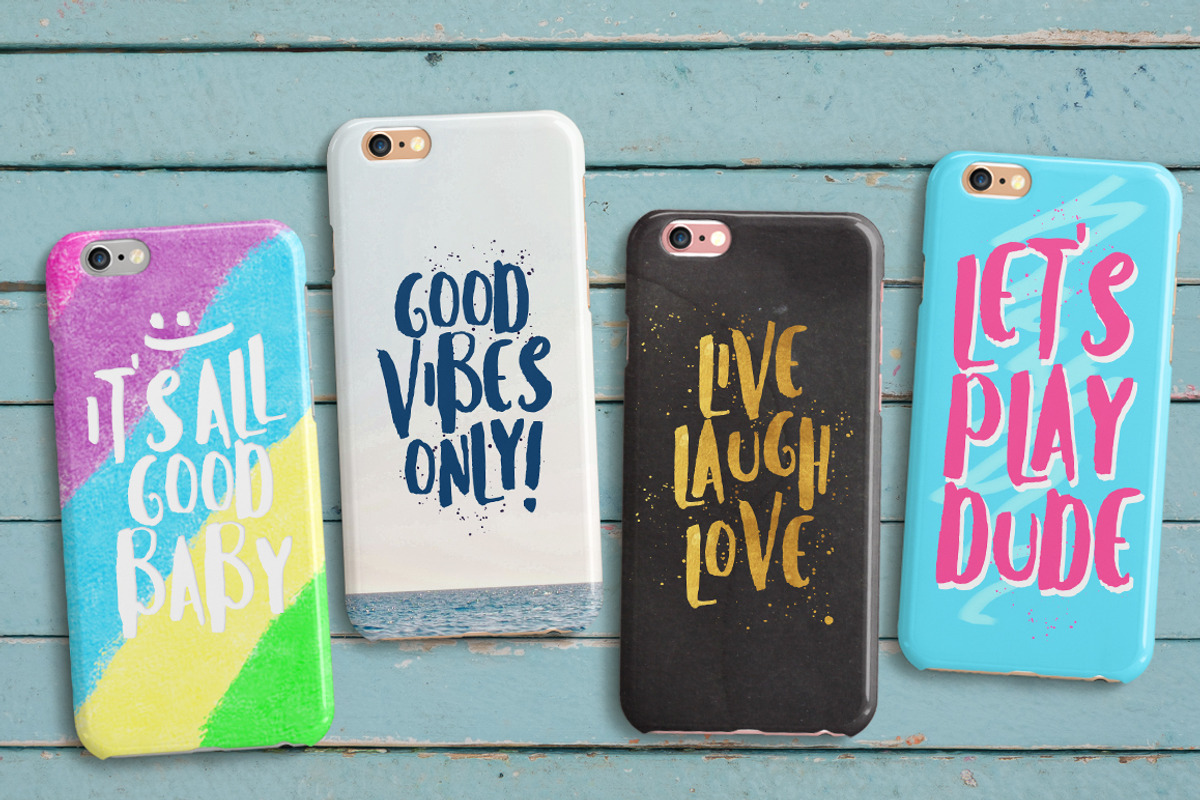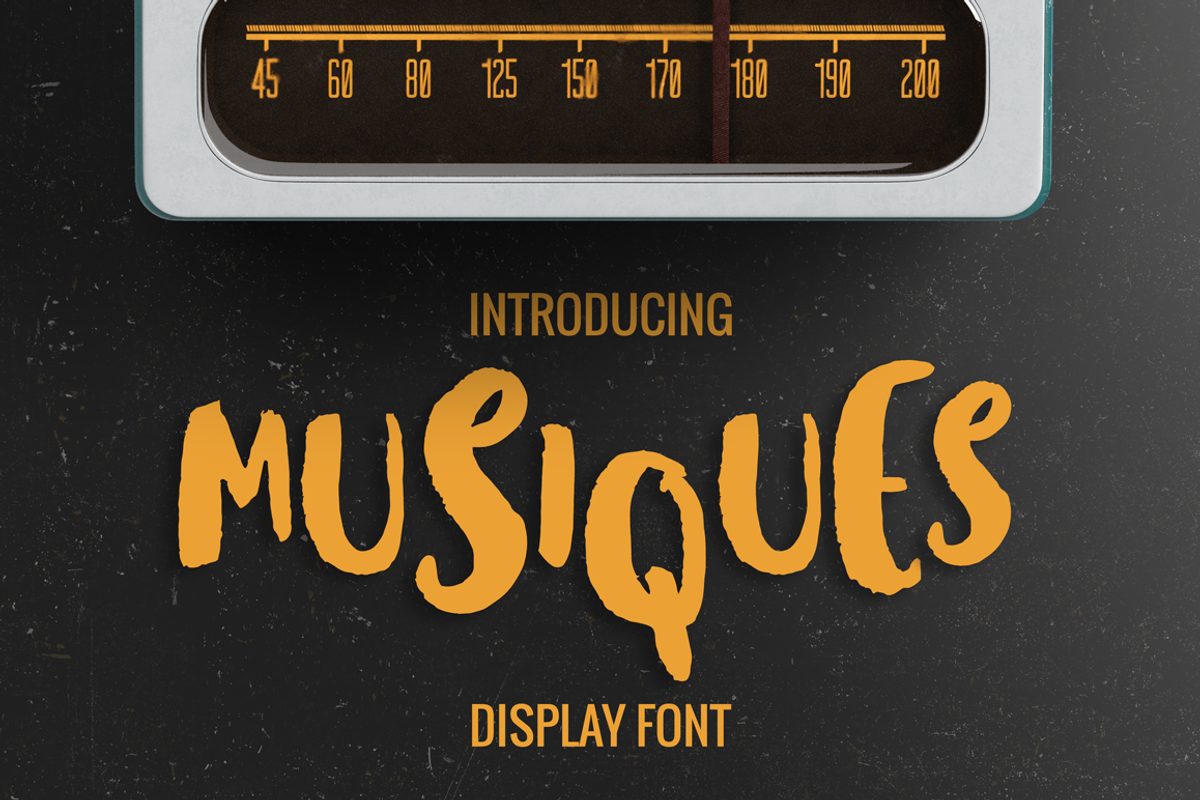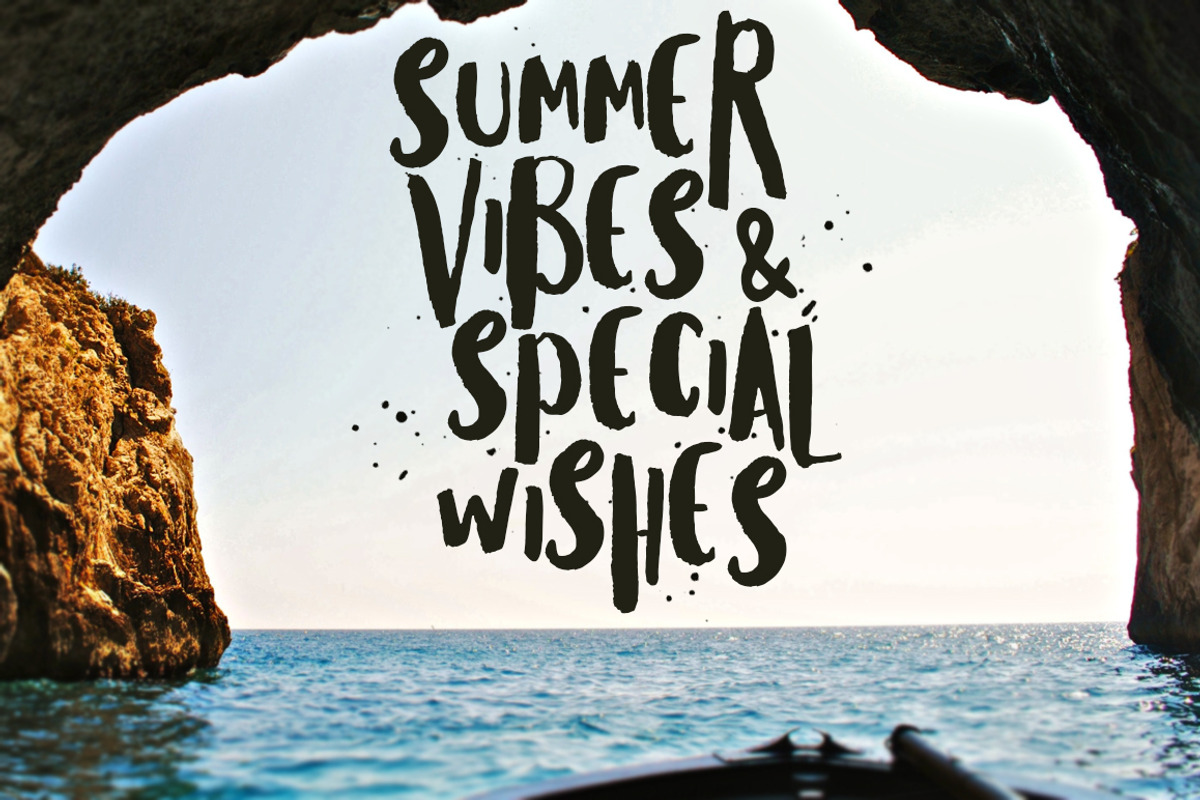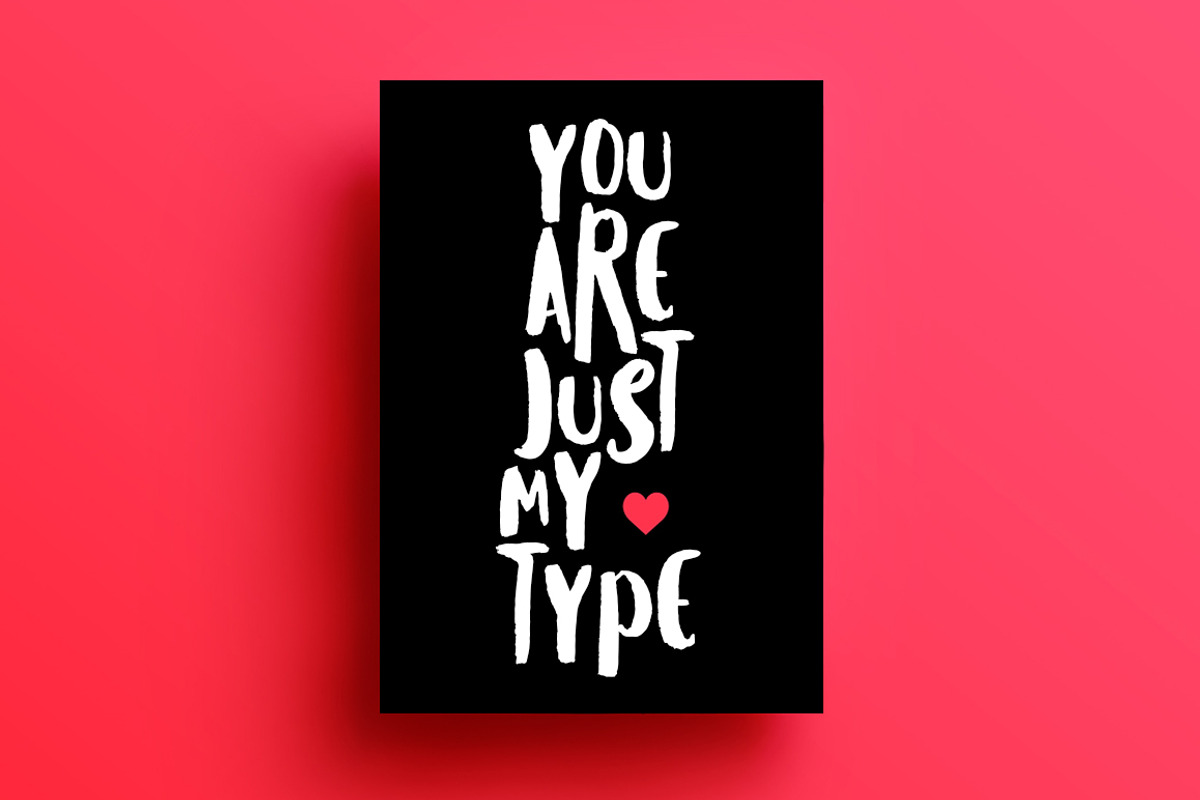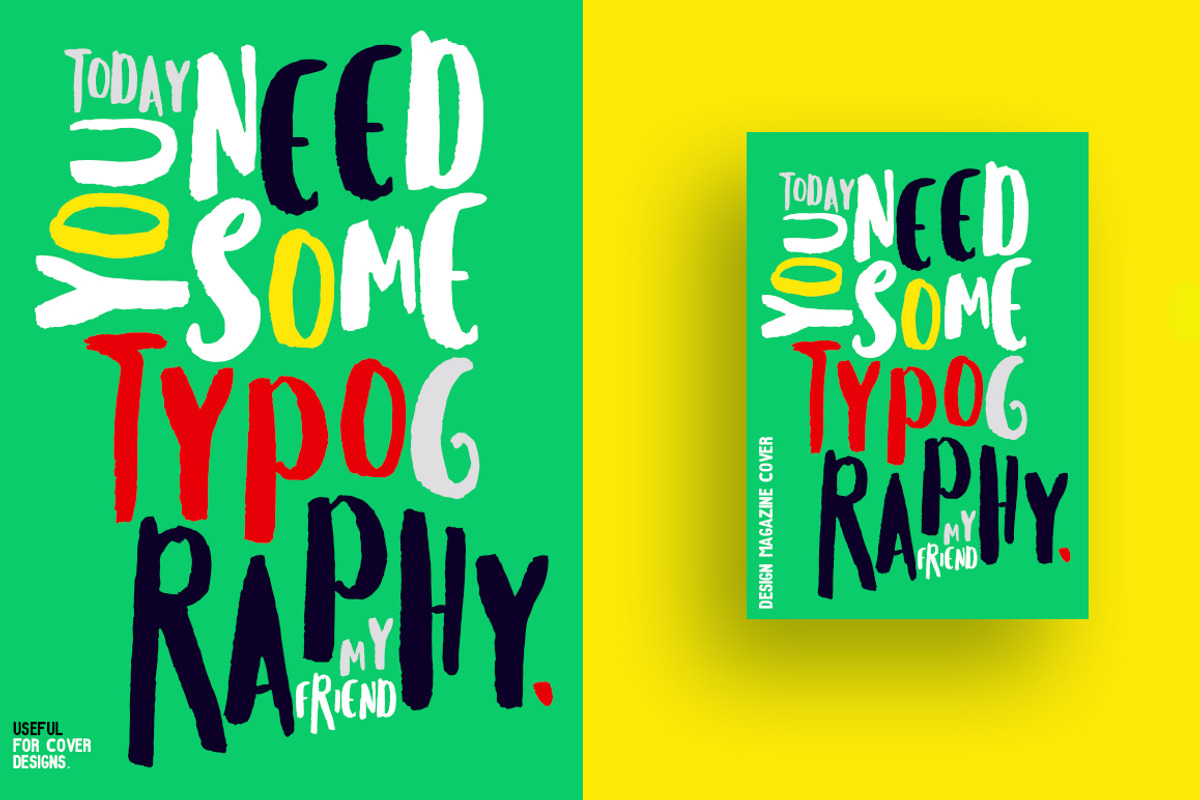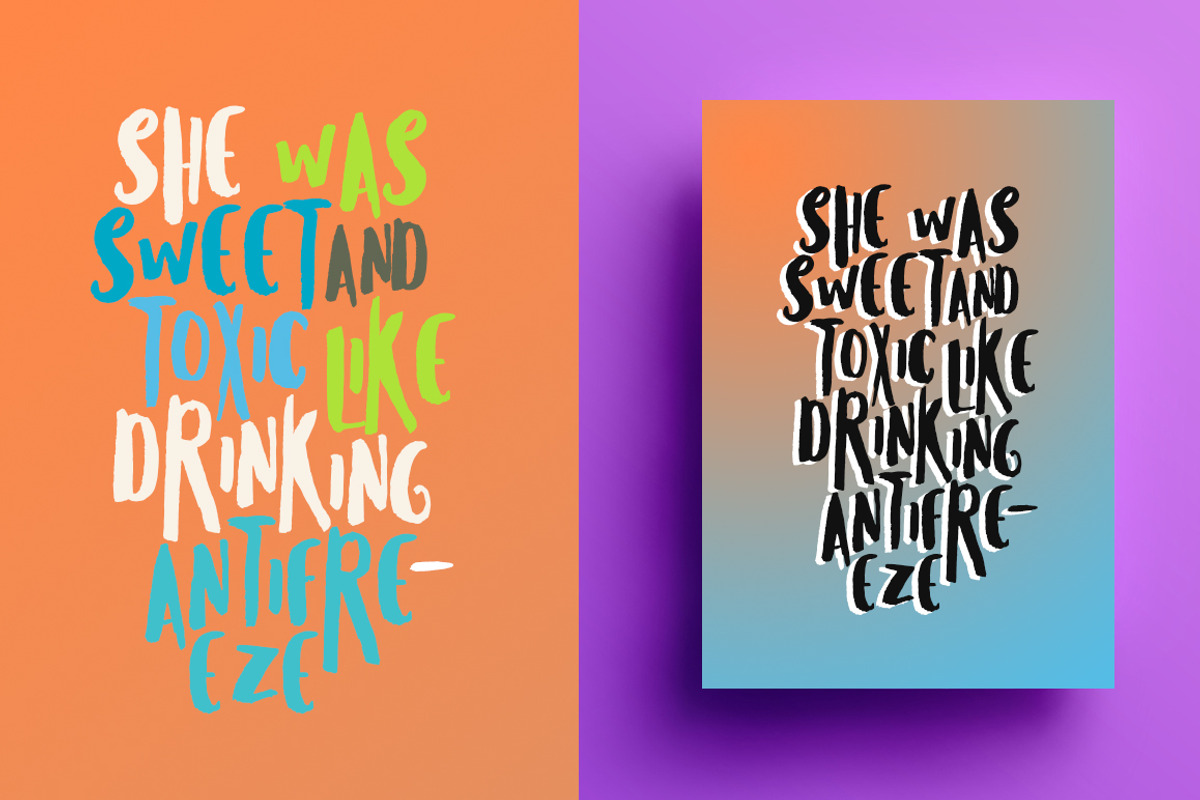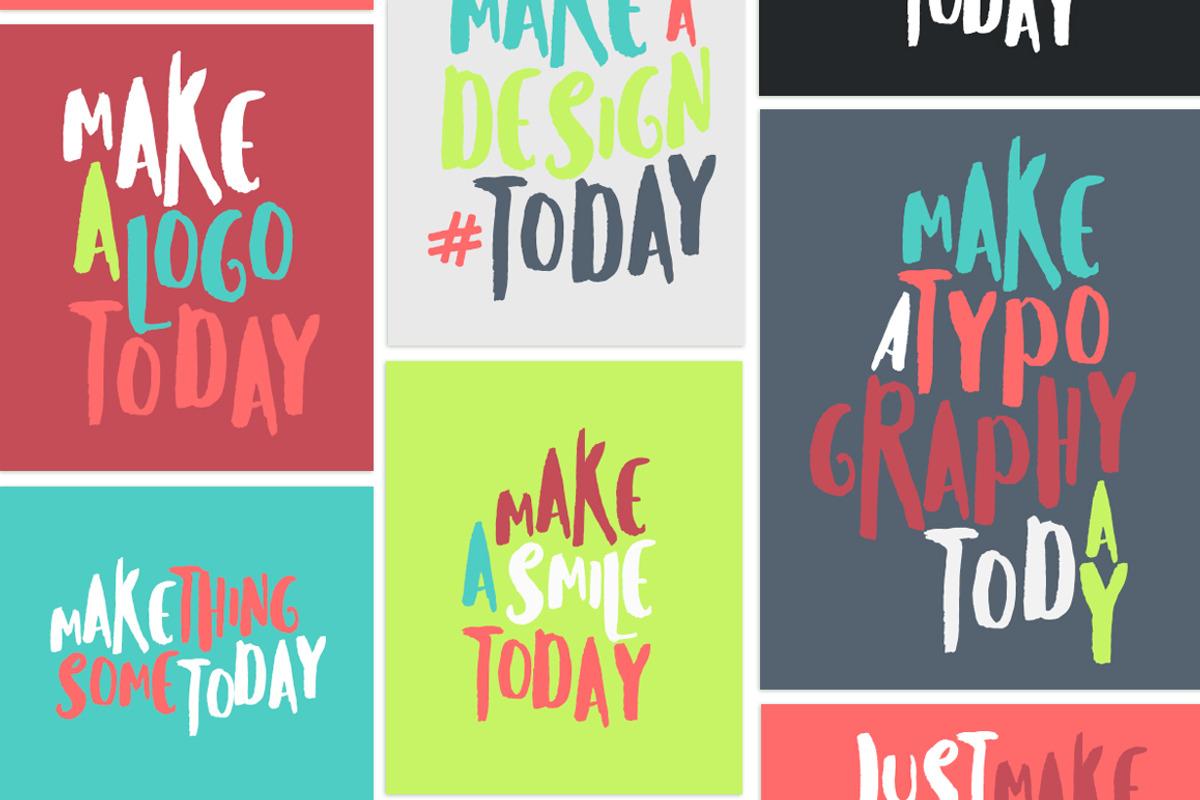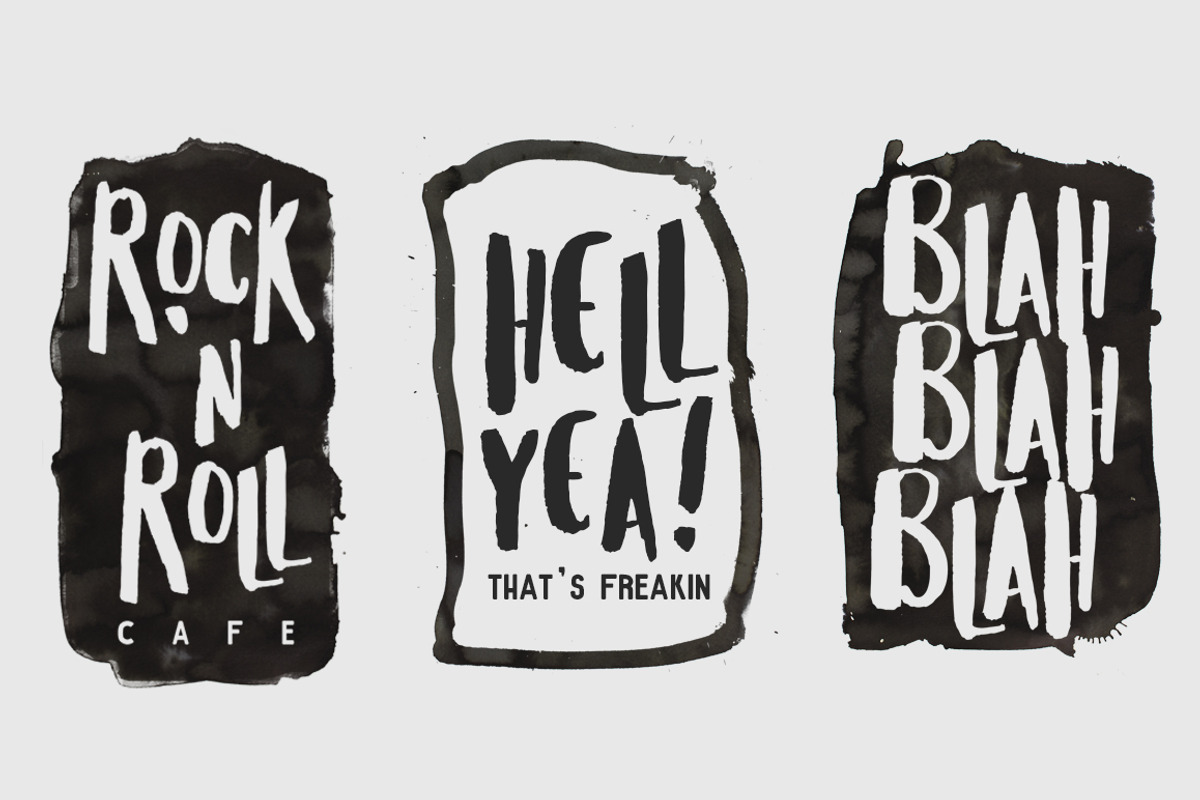
Musiques Display Font
Did you hear the new Musiques font?
Musiques is basic handmade brush display font. No big deal but ,it's very useful eventually Less is More
Make greetings, logos, packaging, invitations, stationery, merchandise, posters, websites, digital presentations and more....You need nothing else! Also have sale price! Musiques perfect for great typographies, quotes, posters because it has tall and short letters. Try now!
I've tried it in the preview images. Let your imagination run wild.Enjoy!
Why Musiques Display Font is worth a look
Musiques Display Font by Yasir Ekinci fits naturally into Branding, posters, packaging, typography.